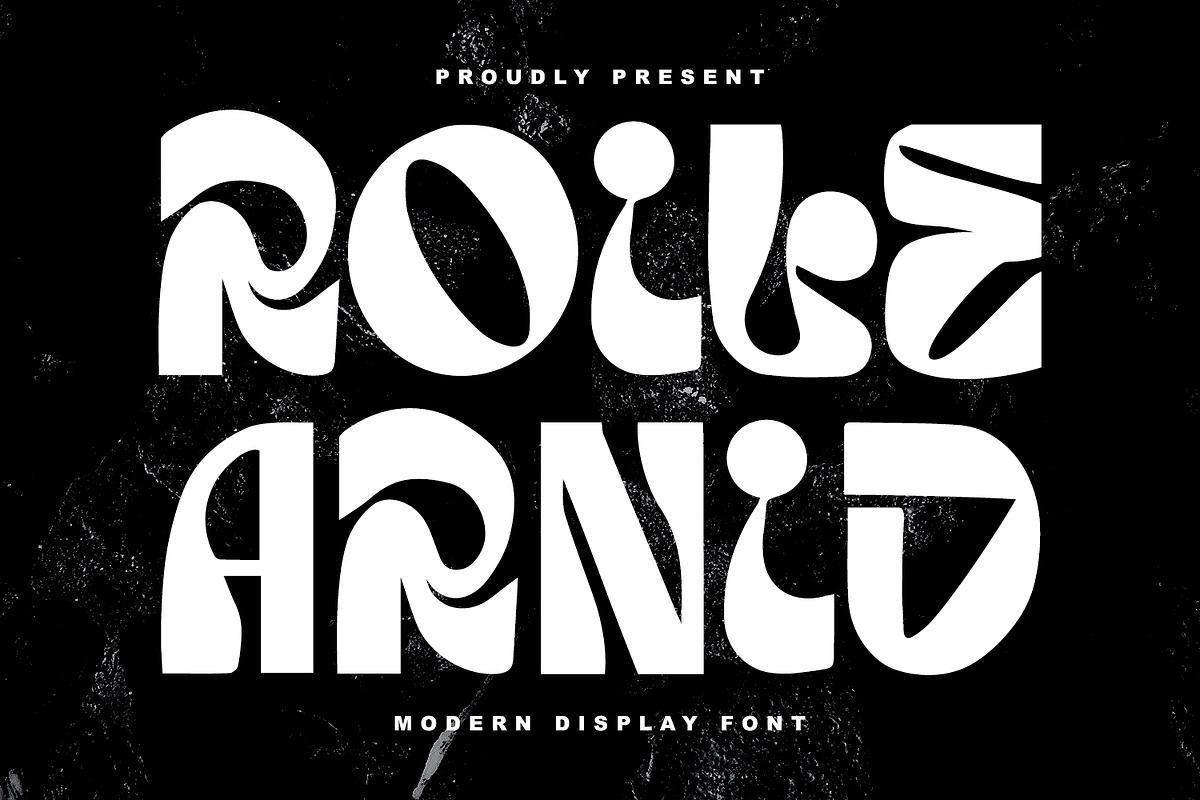
Roile Arnid Modern Display Font Free Download is a sleek and stylish typeface designed for premium, high-end design projects. With its clean lines, refined curves, and bold presence, Roile Arnid is perfect for luxury branding, editorial layouts, product packaging, and sophisticated logo design. It blends contemporary aesthetics with timeless elegance, making it a go-to choice for designers seeking a polished and professional look.
This modern display font commands attention while maintaining readability, offering versatility across digital and print platforms. Whether you're crafting a fashion magazine cover or designing a high-end cosmetics label, Roile Arnid delivers a distinctive and elegant touch.